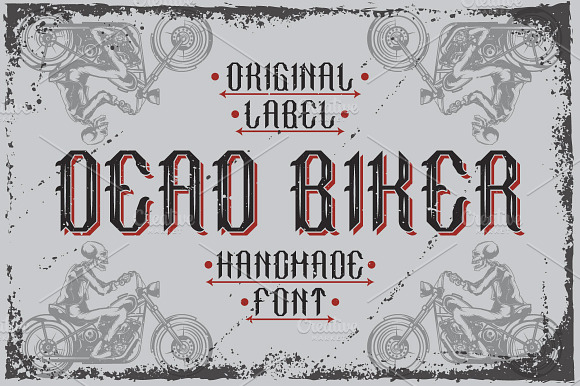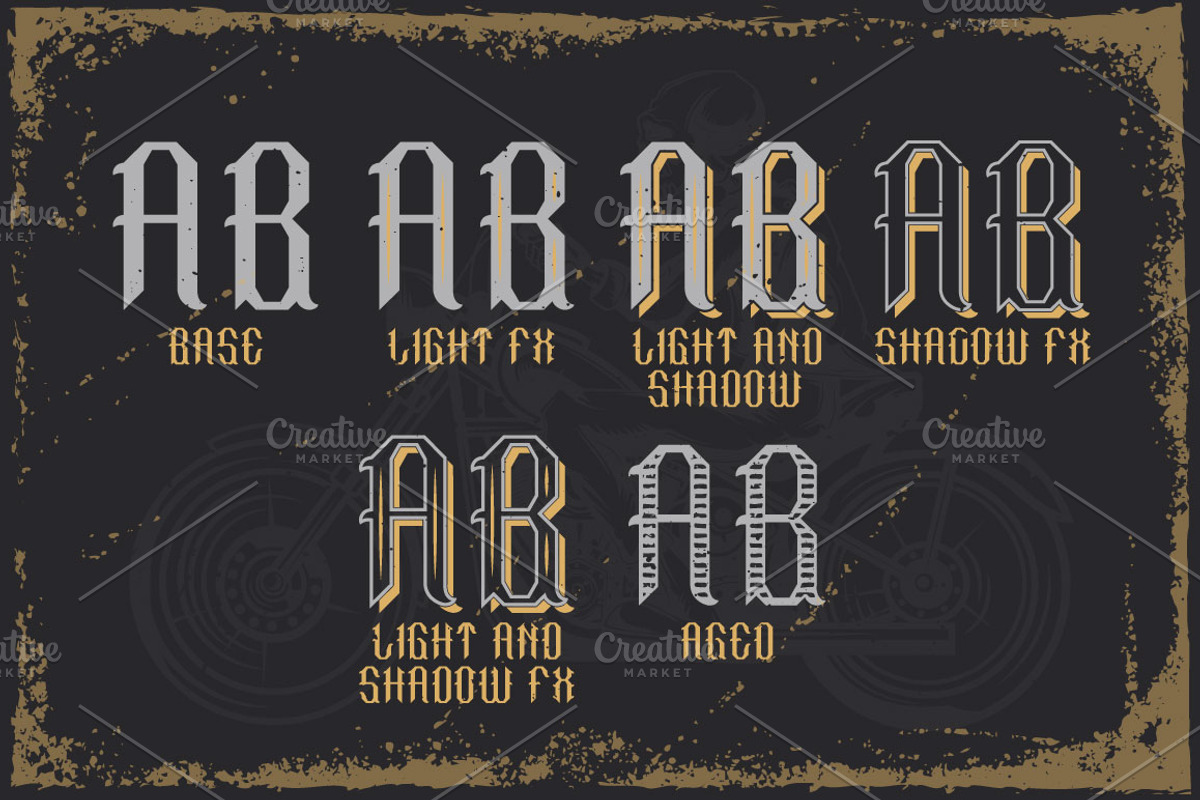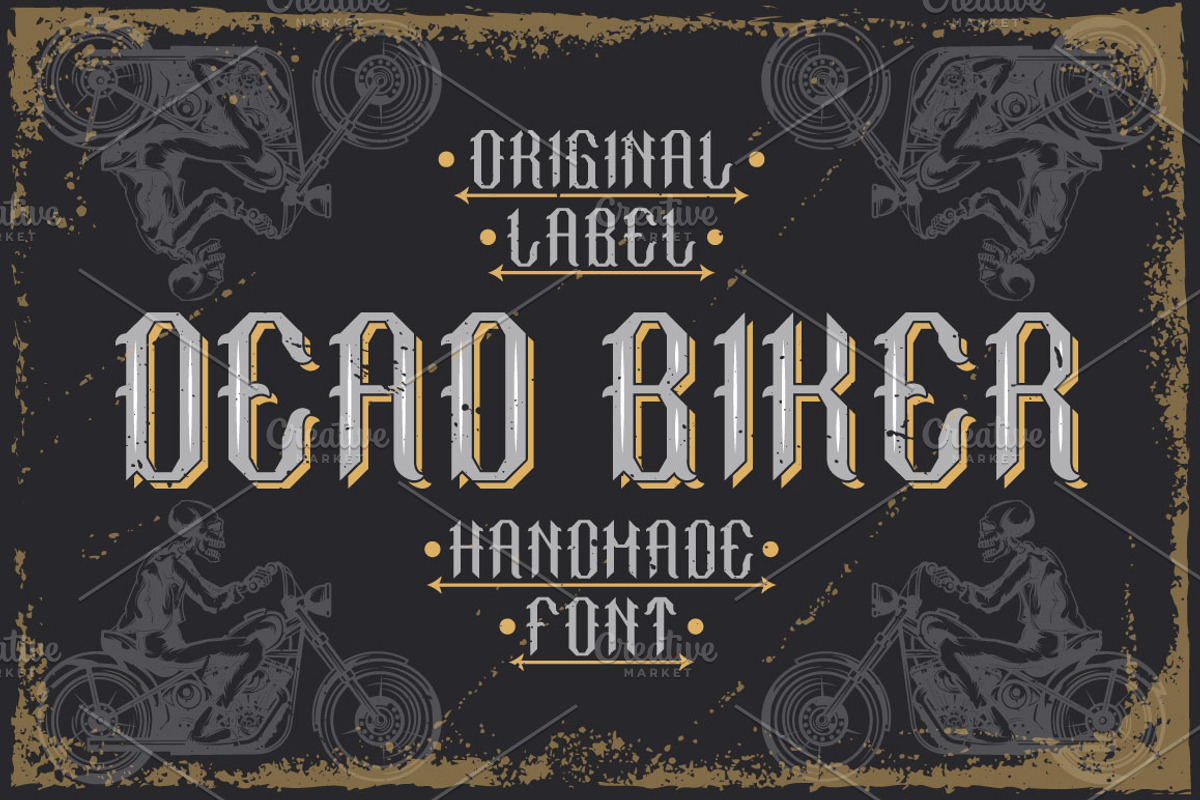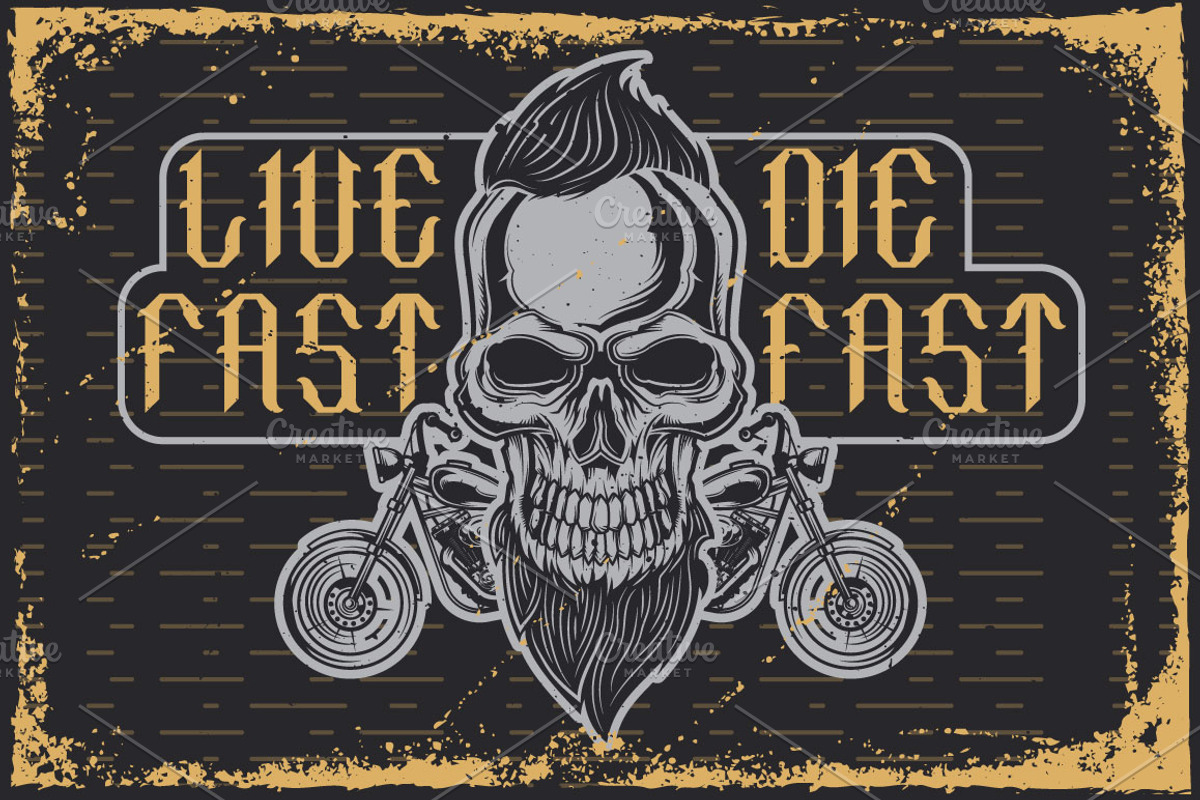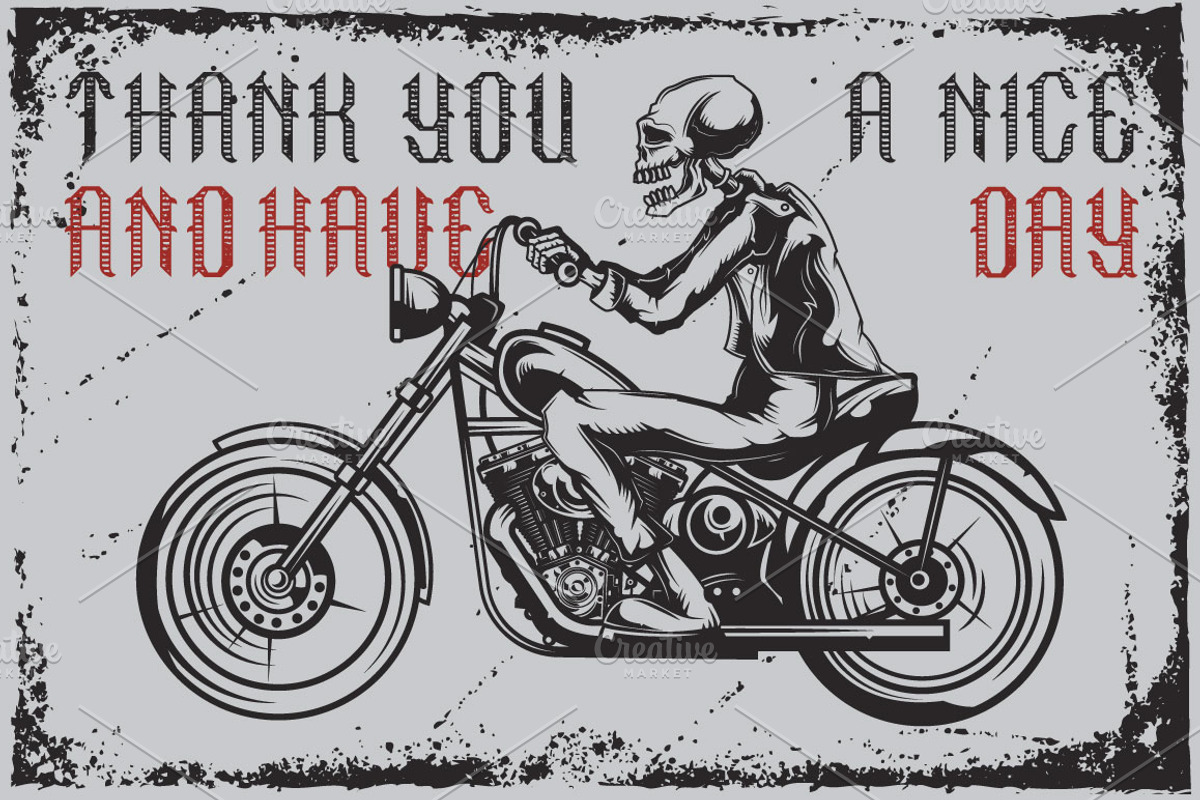
Handcrafted font "Dead biker"
Introducing a vintage label typeface called "Dead biker" + bonus illustrations. It's made in strong and vintage label style. Typeface looks great on any label designs and t-shirts.
5 fonts in complect with special effects + aged version
You can mix color of base font, light and shadow effect (look at 3rd screenshot)